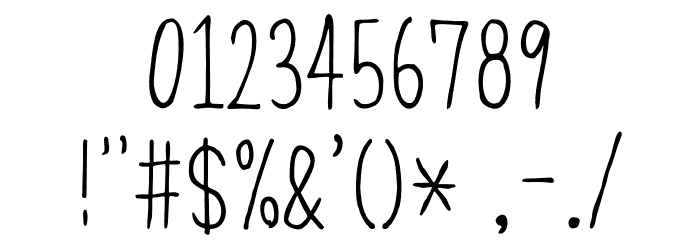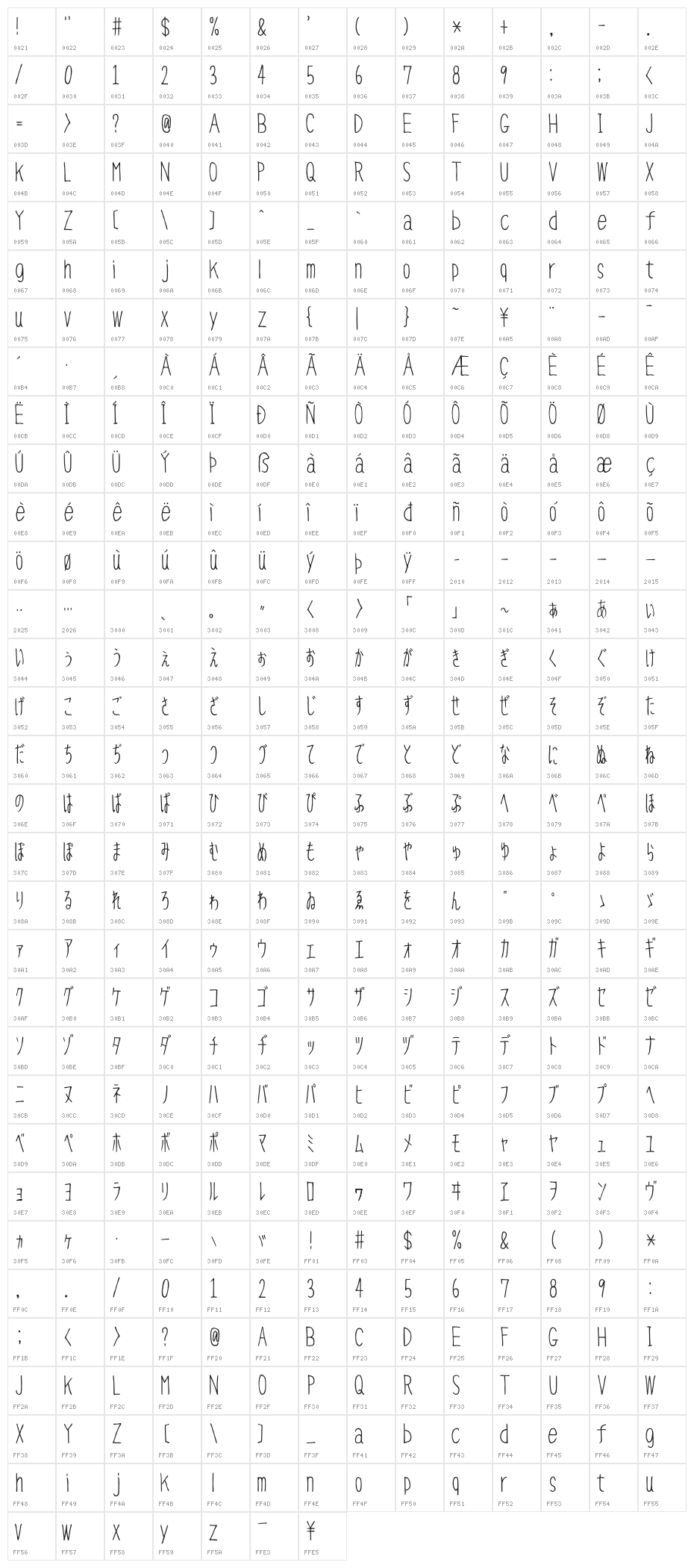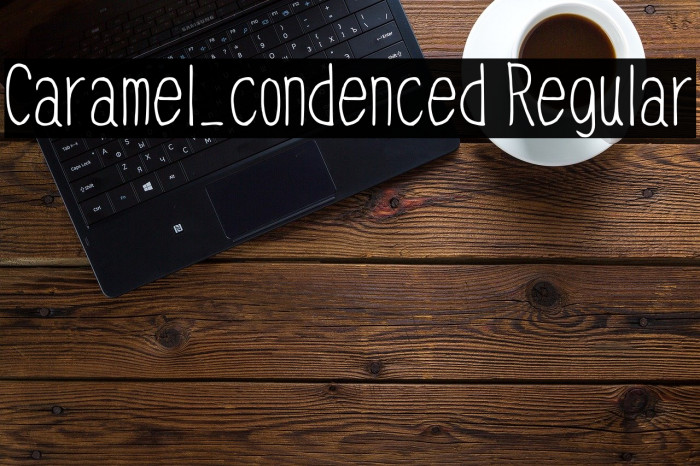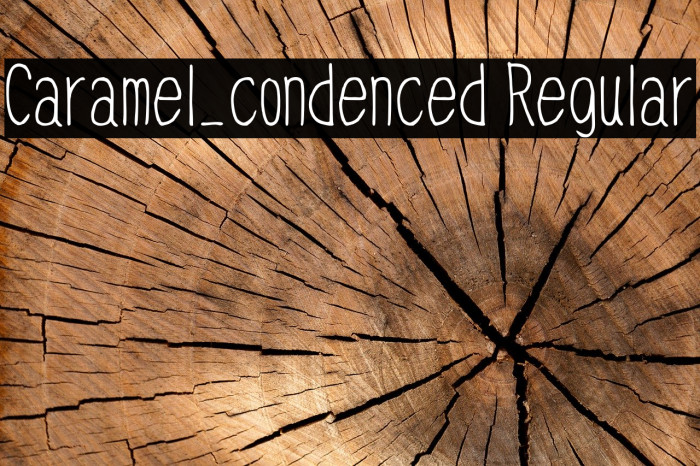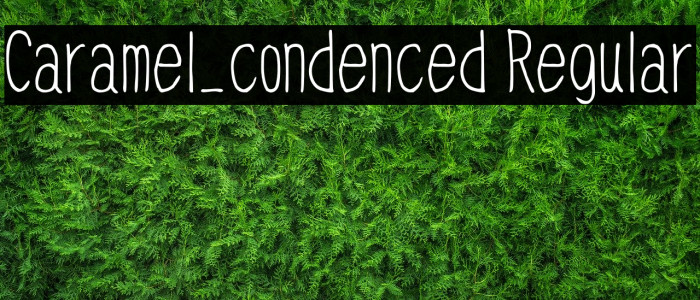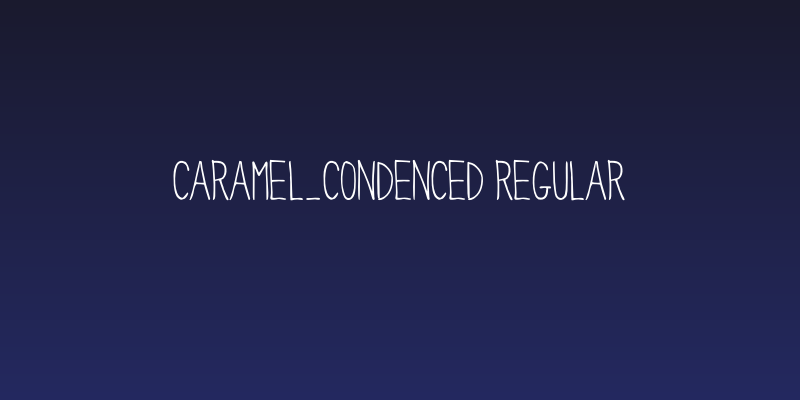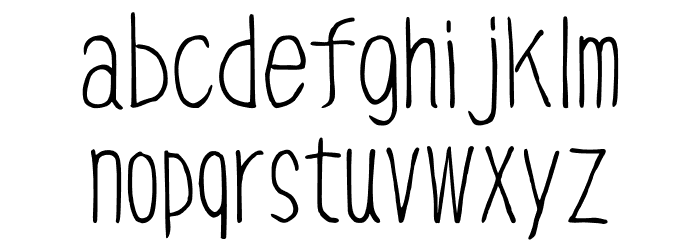
Caramel_condenced Regular Font
Caramel_condenced Regular Description
This font features a playful and informal style with a handwritten appearance. The characters are tall and narrow, giving it a condensed look. The strokes are consistent in width, providing a uniform appearance across all characters. The font maintains a casual and friendly vibe, making it suitable for creative and informal projects. The uppercase and lowercase letters are well-proportioned, and the numbers are clear and easy to read. Special characters are included, adding versatility to its use. The overall design is simple yet effective, making it a great choice for projects that require a personal touch.
| Proposed Projects | Ideal for greeting cards, invitations, children's books, and casual branding. |